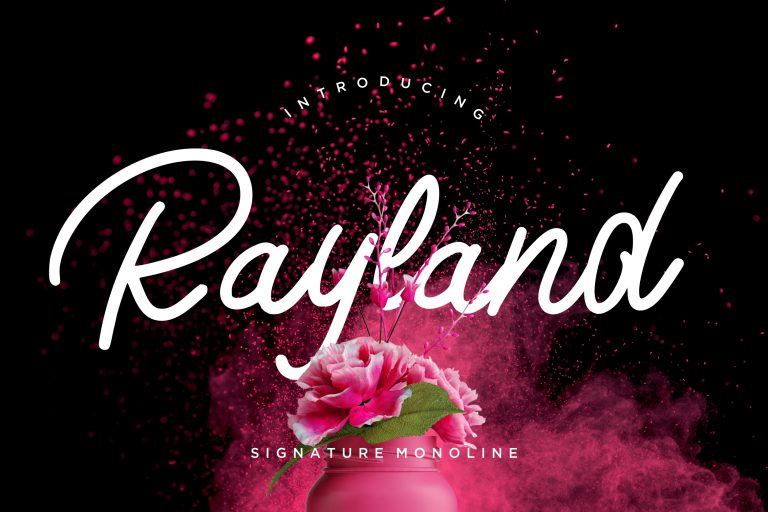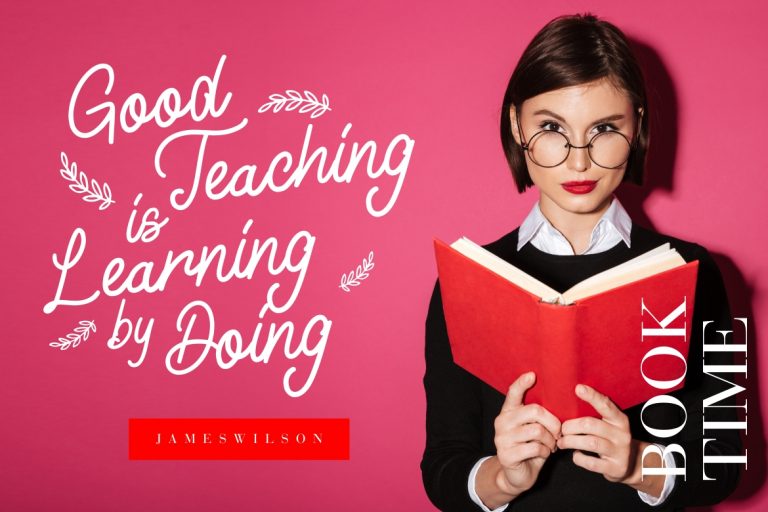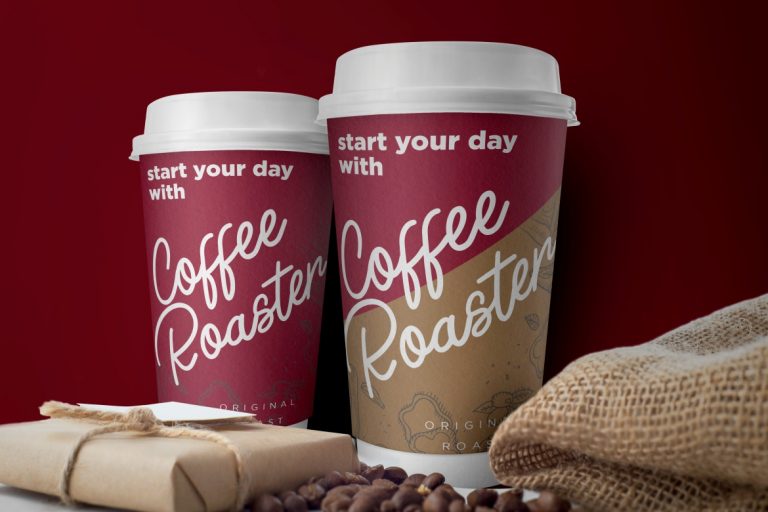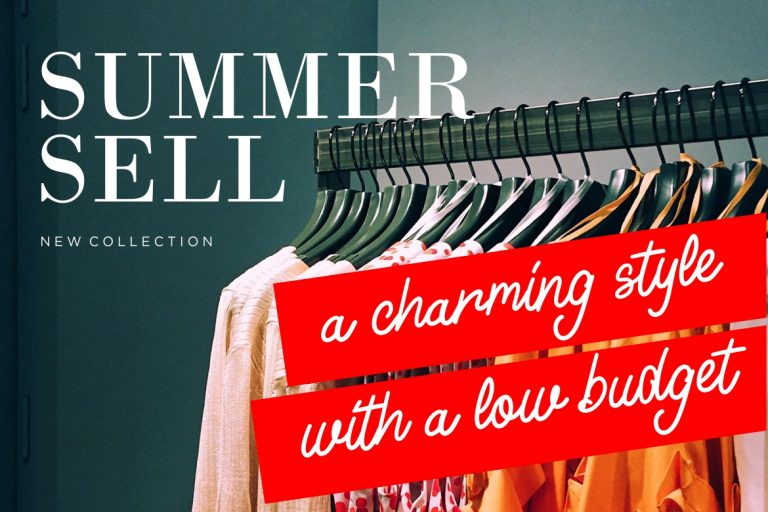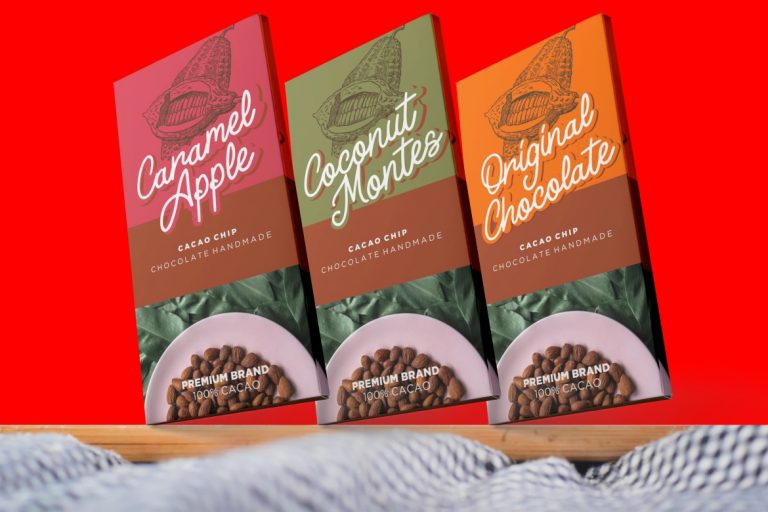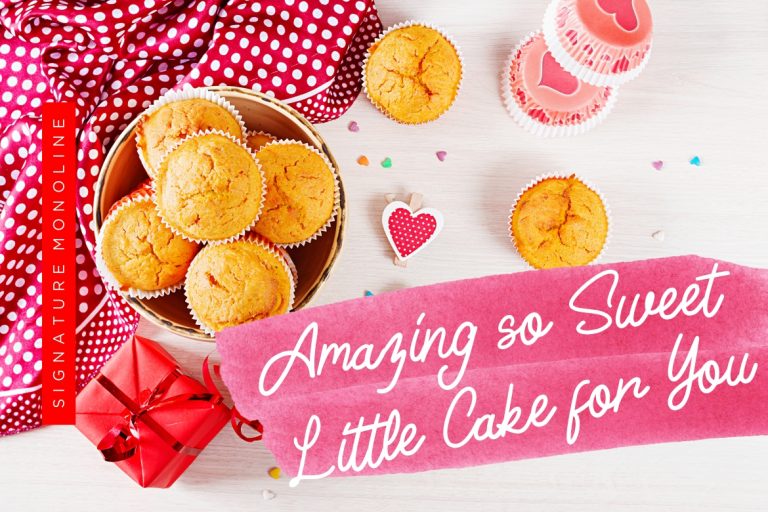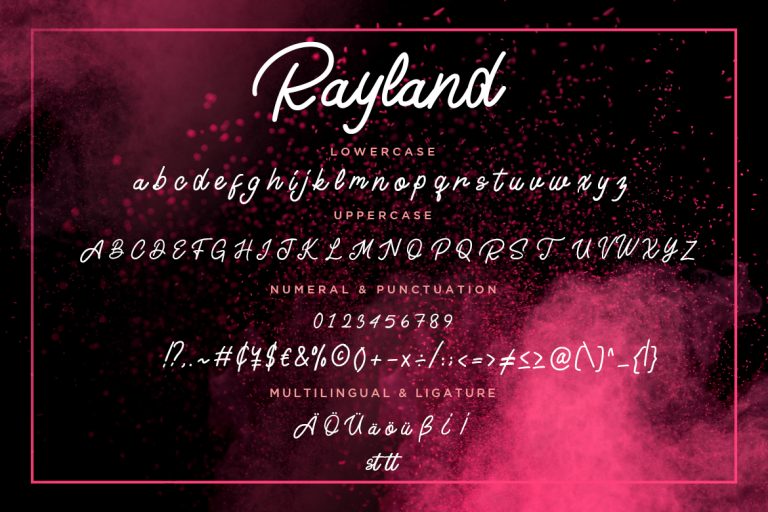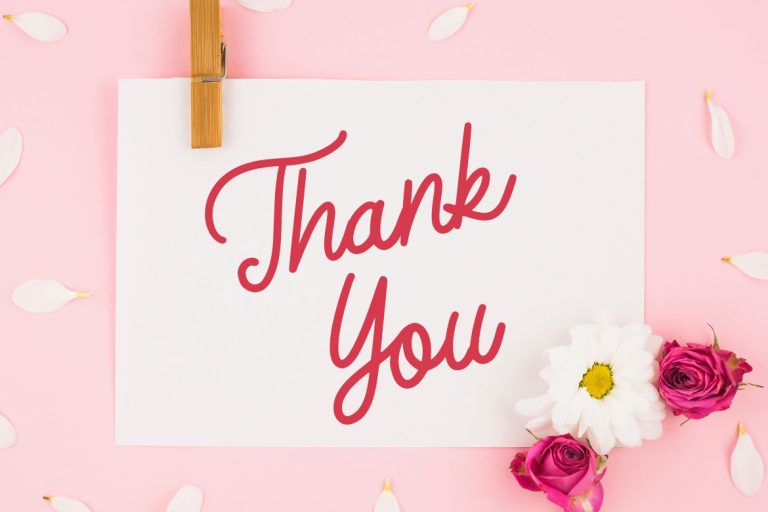
Rayland Signature Monoline
Rayland is signature monoline stylish font perfect for your latest project.
Rayland is perfect for branding projects, logo, wedding designs, social media posts, advertisements, product packaging, product designs, label, photography, watermark, invitation, stationery and any projects that need handwriting taste.
• Standard glyphs
• Ligature
• Fonts include multilingual support for; ä ö ü Ä Ö Ü ß ¿ ¡